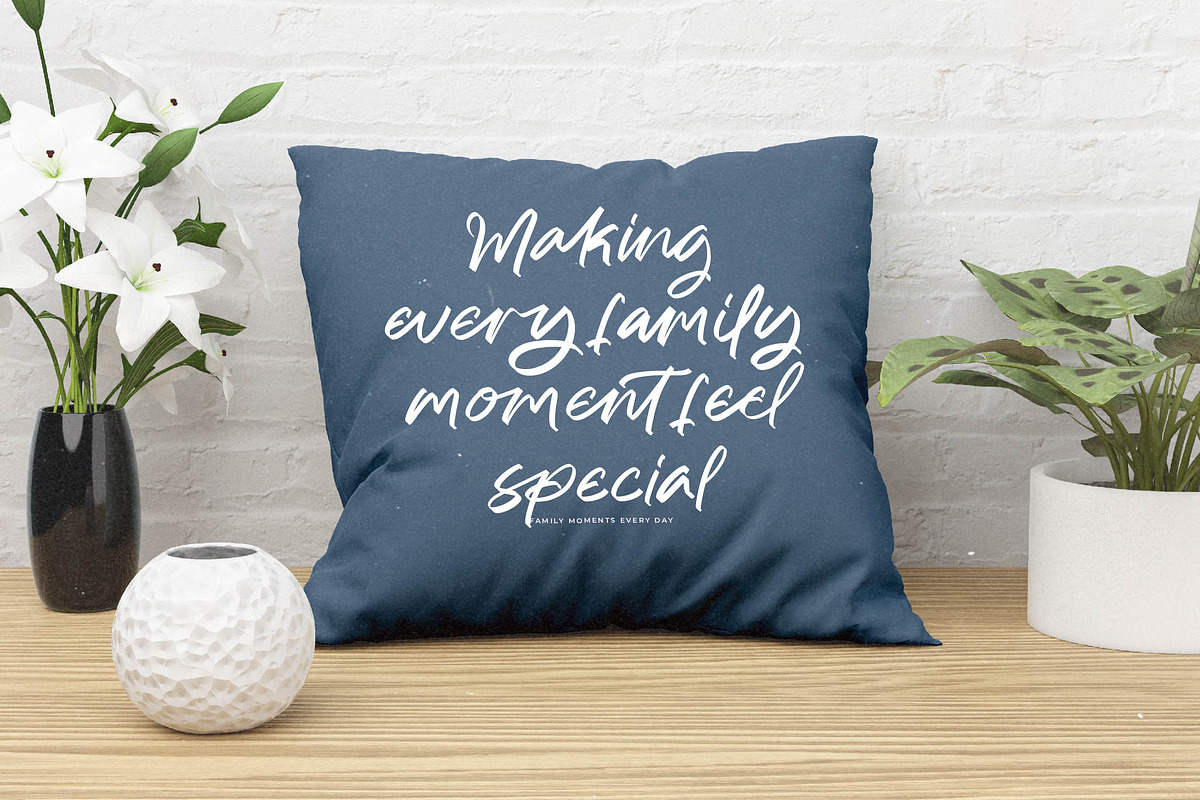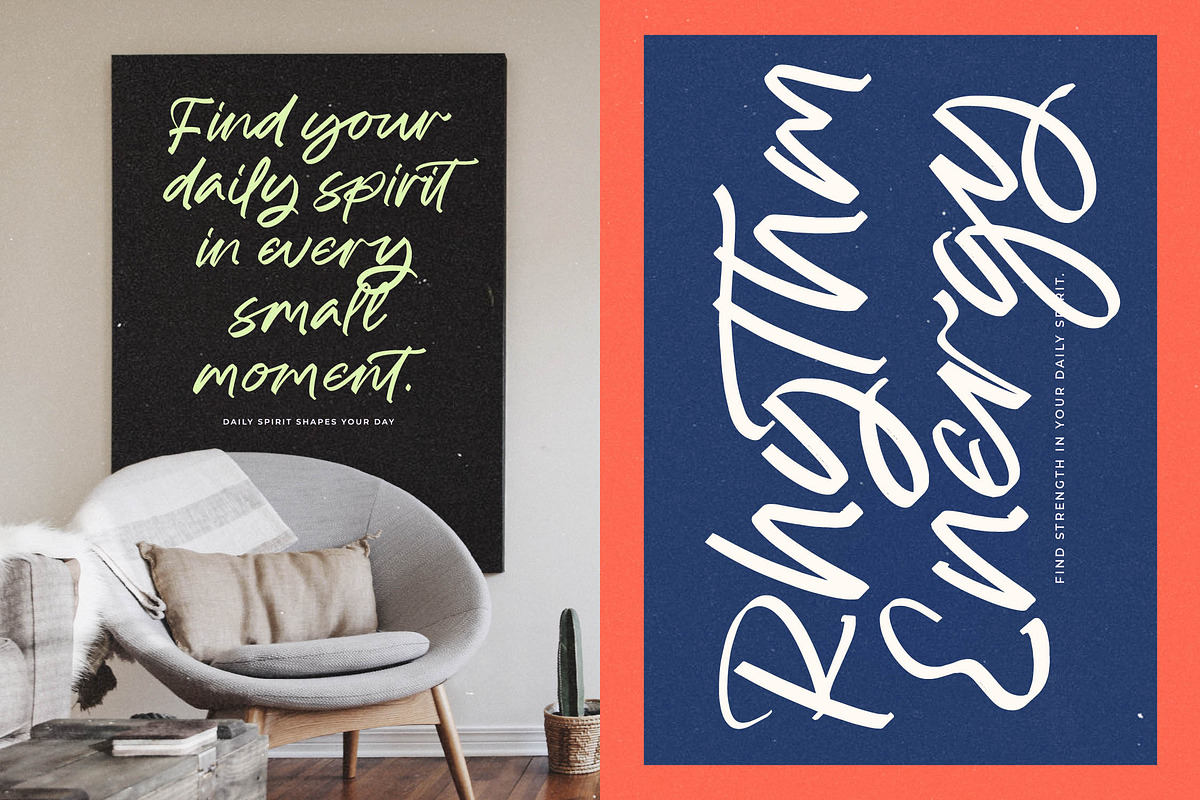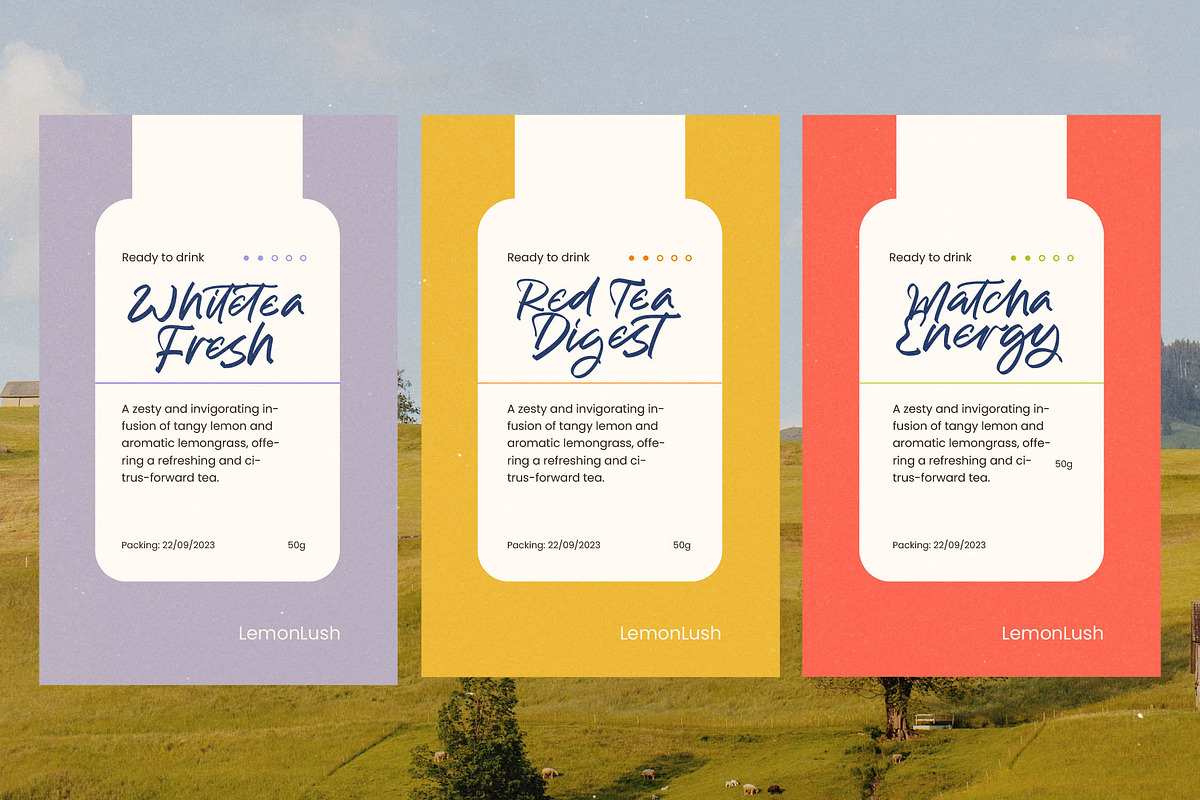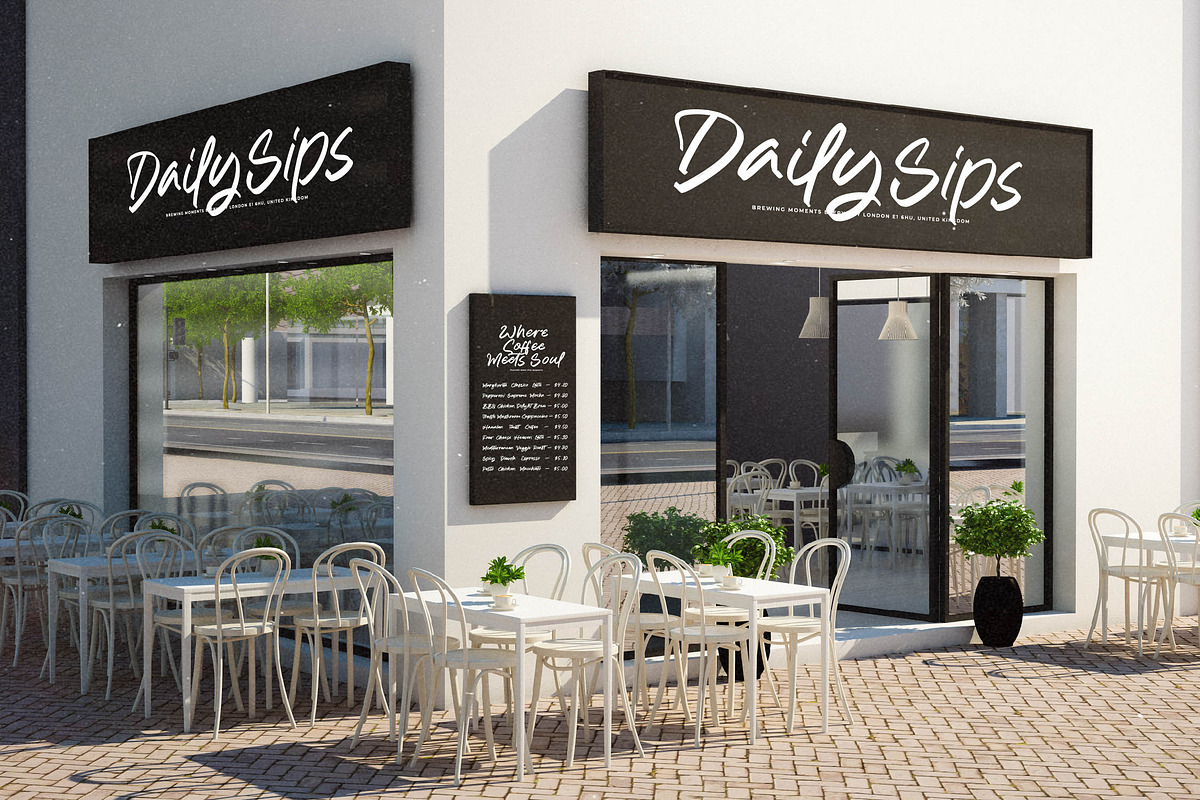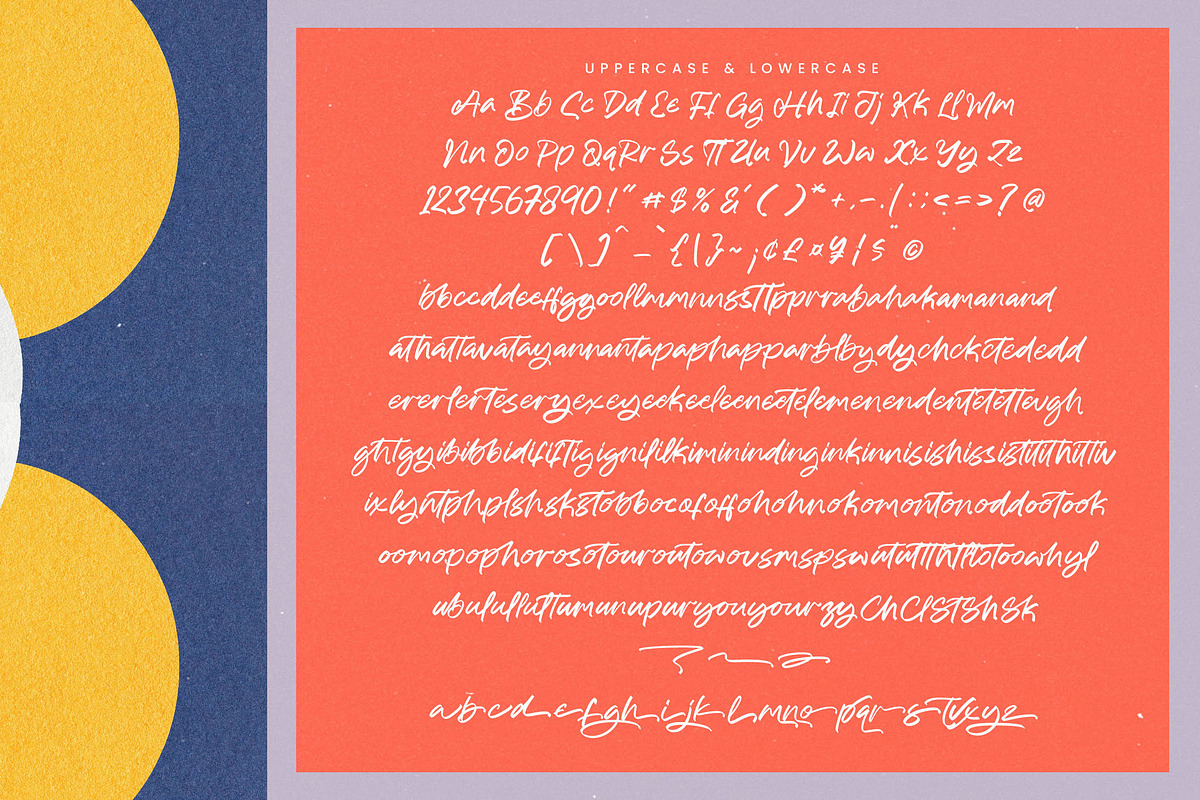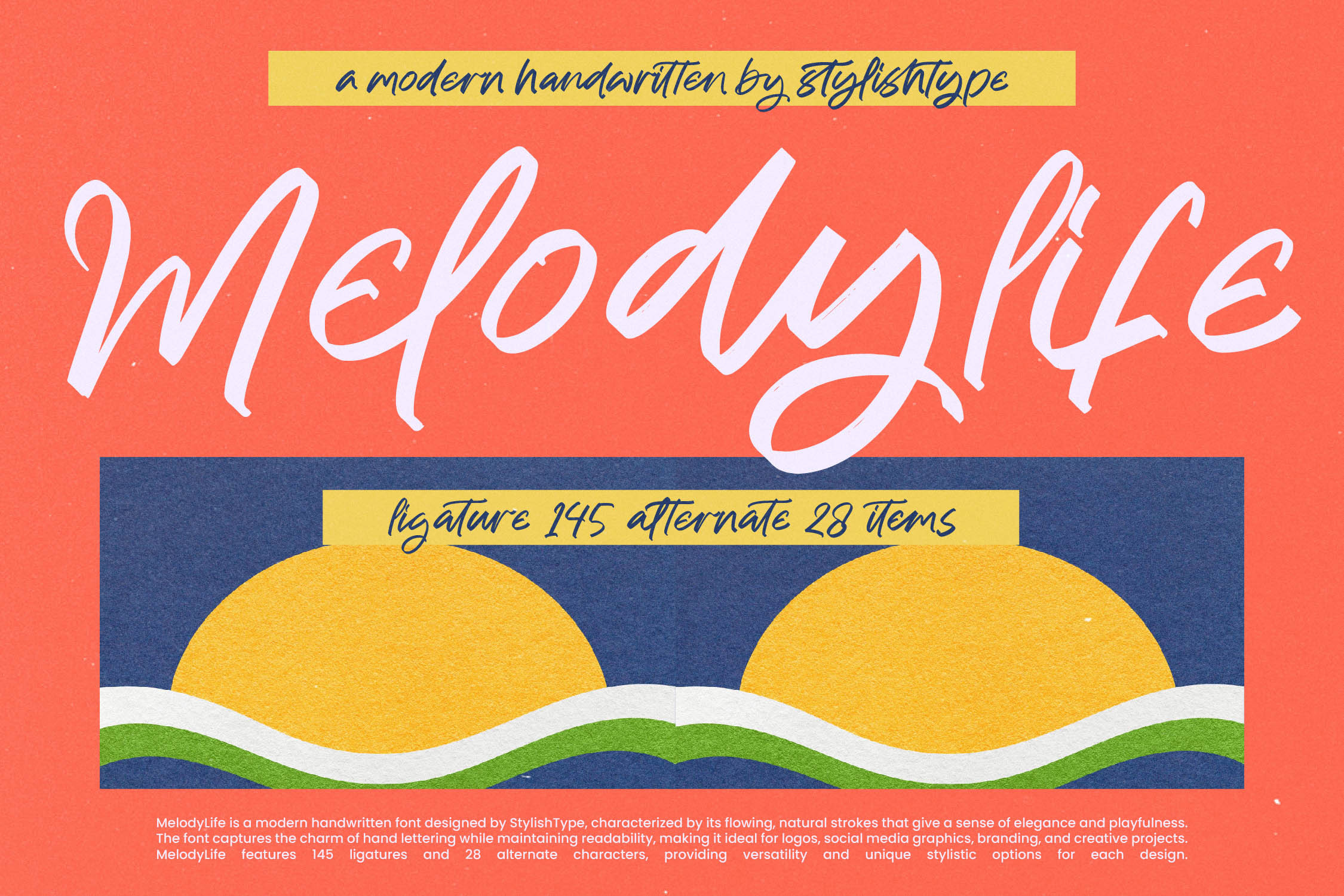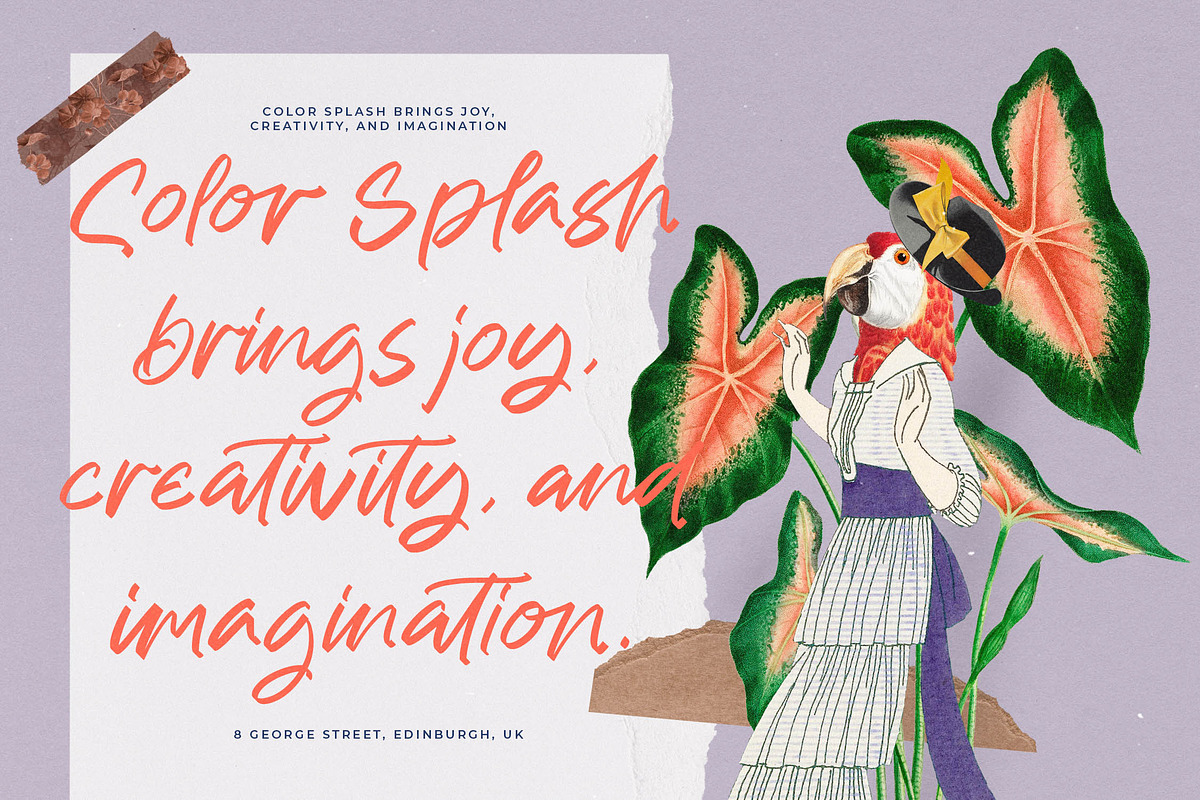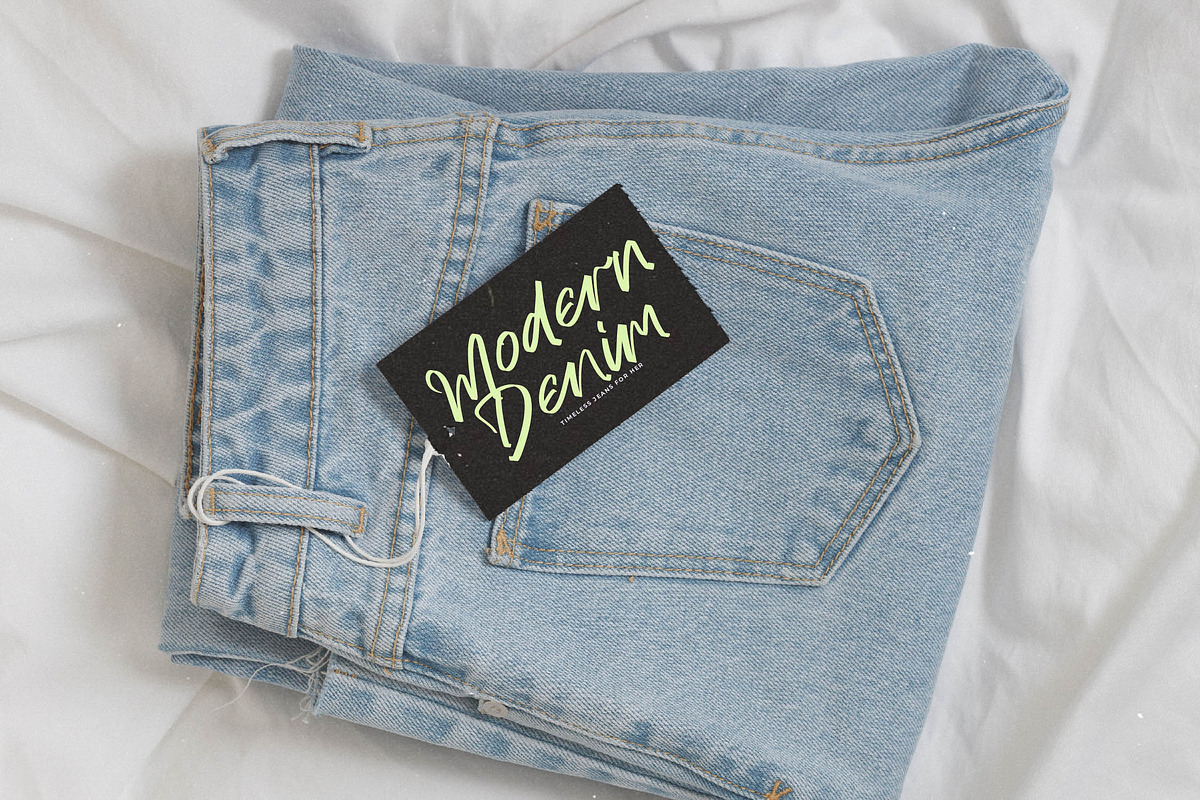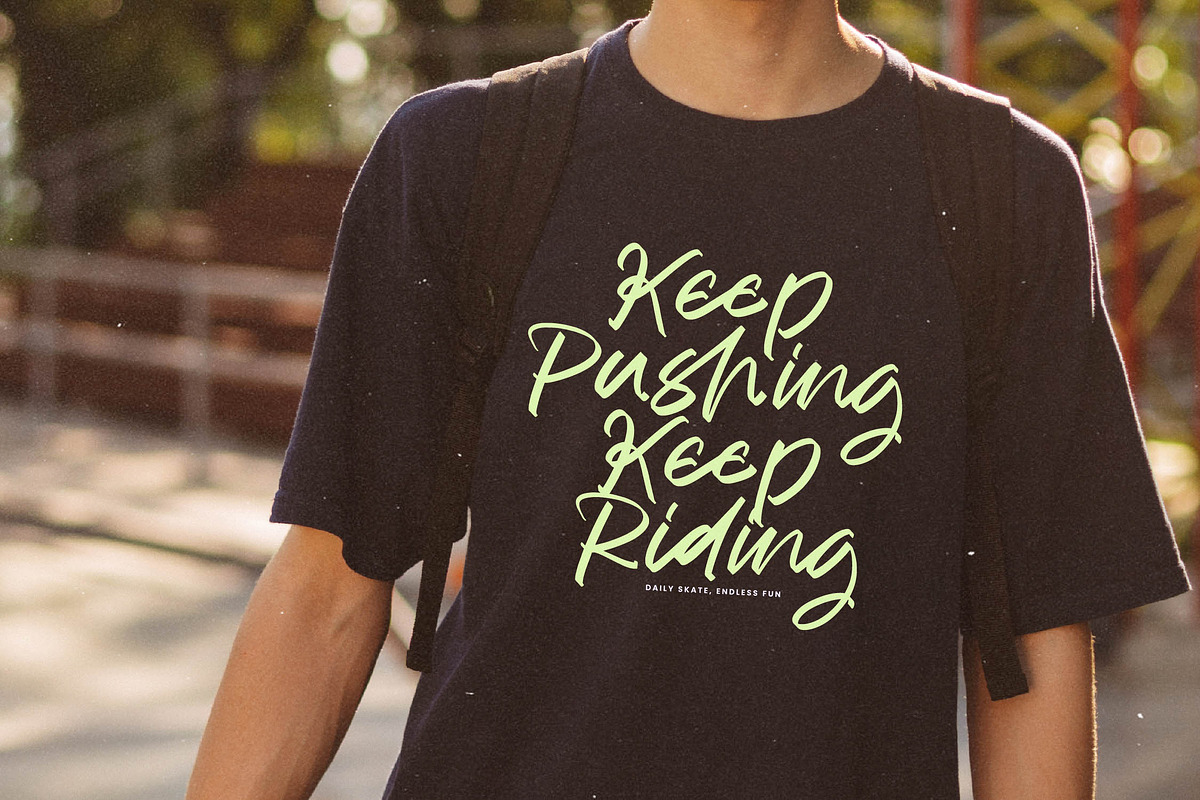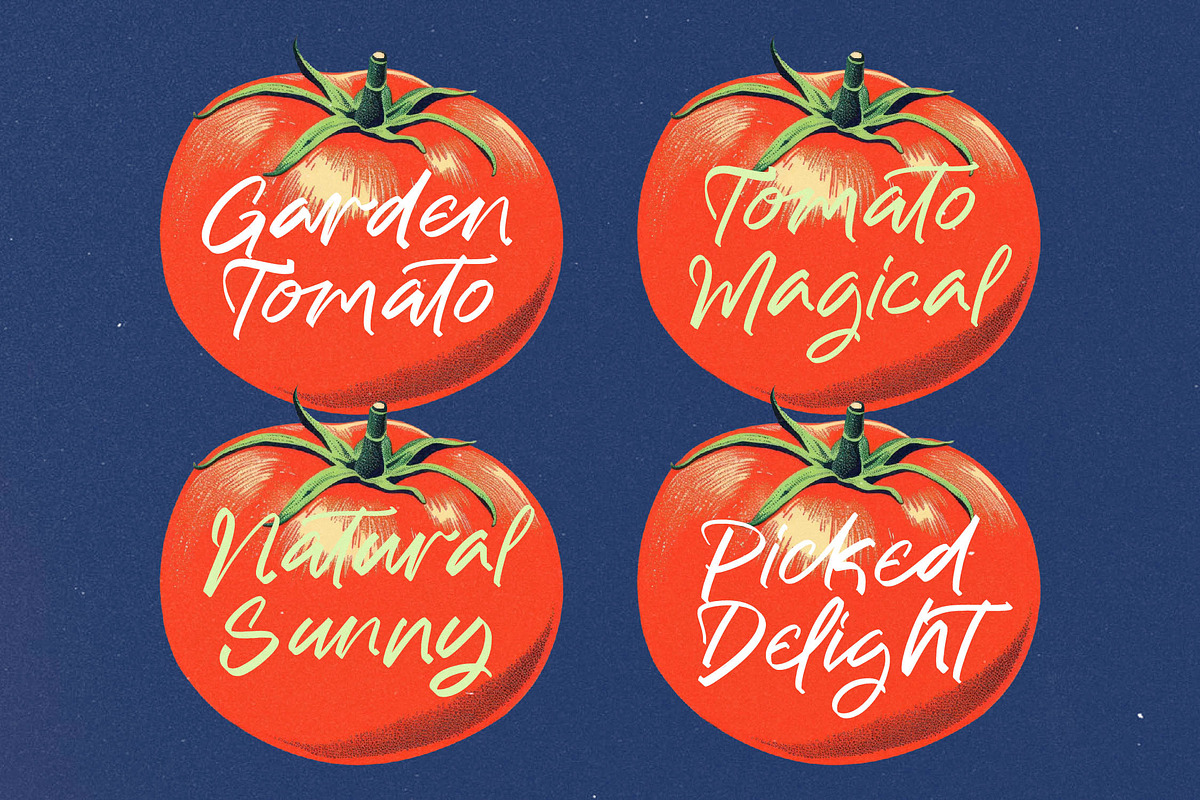
Melody Life Modern Handwritten Font
Melody Life - Modern Handwritten Font , MelodyLife is a modern handwritten font with lively strokes, smooth curves, and a naturally playful rhythm. Designed to capture the warmth of hand-lettered writing, this font combines elegance with expressive motion—perfect for creative branding, logo design, packaging, quotes, social media posts, posters, and lifestyle graphics.
With 145 ligatures and 28 alternates, MelodyLife offers a wide range of stylistic variations to bring personality and authenticity into every word you create. Its flowing script style delivers a fresh, uplifting mood, inspired by retro summer aesthetics and natural handwriting charm. Ideal for designers who want a handcrafted look that remains readable, stylish, and expressive.